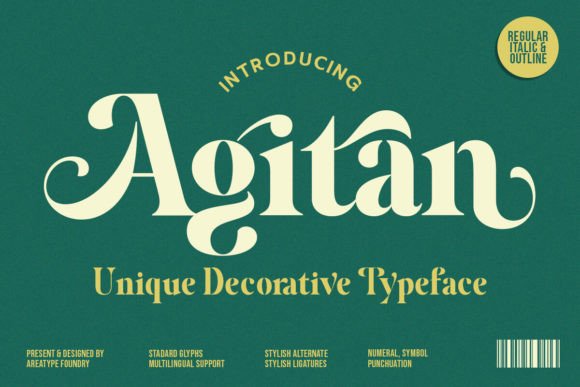
Agitan Font: Elevate Your Designs with Elegance and Sophistication
When it comes to creating visually stunning designs, the right font can make all the difference. Agitan Font, specifically Agitan Display, is a beautiful and stylish serif font that has been gaining popularity among designers and typography enthusiasts alike. Its unique and feminine look makes it perfect for elegant designs that require a touch of sophistication.
What is Agitan Font?
Agitan Font is a serif font family that includes various weights and styles, making it versatile for a range of design applications. Agitan Display, in particular, is a stunning example of a serif font that exudes elegance and refinement. Its intricate details and classic feel make it an excellent choice for designs that require a high level of sophistication.
Unique Characteristics of Agitan Display
Agitan Display boasts several unique characteristics that set it apart from other serif fonts. Some of its notable features include:
- Feminine touch: Agitan Display has a distinctly feminine look, making it perfect for designs that require a touch of elegance and refinement.
- Intricate details: The font features intricate details, such as subtle serifs and refined lines, that add to its classic feel.
- High legibility: Despite its ornate details, Agitan Display remains highly legible, making it suitable for body text and headlines.
- Versatility: Agitan Display comes in various weights and styles, allowing designers to use it for a range of applications, from elegant headings to refined body text.
Design Applications for Agitan Font
Agitan Font, particularly Agitan Display, is suitable for a wide range of design applications, including:
- Logos and branding: The font’s elegant and refined look makes it perfect for logos and branding materials that require a touch of sophistication.
- Headings and titles: Agitan Display is ideal for headings and titles, adding a level of elegance and refinement to any design.
- Packaging design: The font’s classic feel and intricate details make it suitable for packaging design, particularly for luxury brands.
- Advertising and marketing materials: Agitan Display can add a touch of sophistication to advertising and marketing materials, such as brochures, flyers, and posters.
Typography Tips for Using Agitan Font
To get the most out of Agitan Font, particularly Agitan Display, consider the following typography tips:
- Pair with neutral fonts: Pair Agitan Display with neutral fonts, such as sans-serif fonts, to create a striking contrast.
- Use for headings: Use Agitan Display for headings and titles to add a touch of elegance and refinement.
- Experiment with colors: Experiment with different colors to find the perfect match for your design.
- Pay attention to spacing: Pay attention to spacing and kerning to ensure that the font remains legible and visually appealing.
Font Pairing Suggestions for Agitan Display
Here are some font pairing suggestions for Agitan Display:
- Open Sans: Pair Agitan Display with Open Sans for a striking contrast between elegant serif and clean sans-serif fonts.
- Lato: Pair Agitan Display with Lato for a modern and elegant look.
- Merriweather: Pair Agitan Display with Merriweather for a classic and refined look.
Agitan Font, particularly Agitan Display, is a beautiful and stylish serif font that can elevate your designs with elegance and sophistication. Its unique and feminine look makes it perfect for elegant designs that require a touch of refinement. With its versatility, legibility, and classic feel, Agitan Display is an excellent choice for a wide range of design applications.